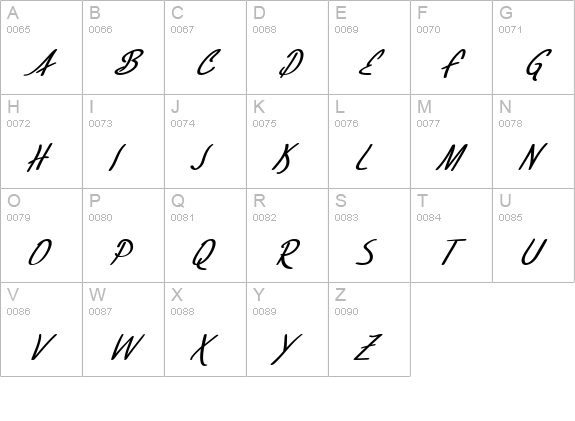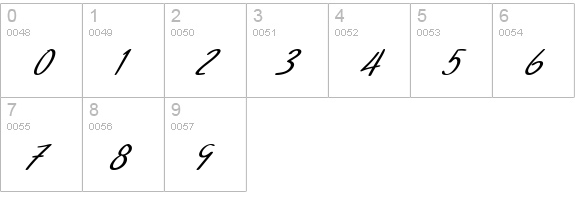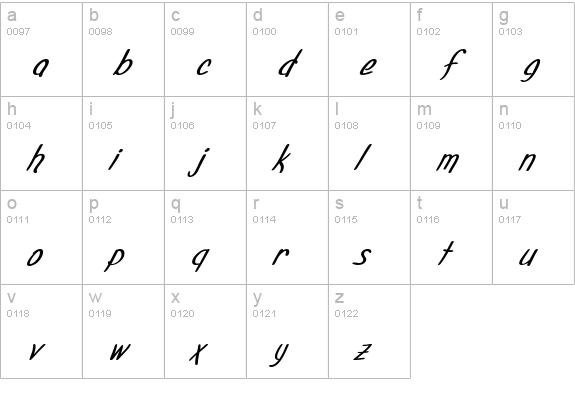
SF Foxboro Script Bold Italic Font Details
SF Foxboro Script Bold Italic is a strong, high-contrast, italic variant in the SF typeface family \xE2\x80\x94 well suited to headlines, attention-grabbing titles, and strong calls-to-action.
SF Foxboro Script Bold Italic is a stunning and elegant font that effortlessly combines boldness and style. This font is the perfect choice for those seeking a unique and captivating look for their designs. Its bold and italicized letterforms bring a sense of sophistication and flair to any project. With its graceful curves and intricate details, SF Foxboro Script Bold Italic is sure to make a lasting impression. Whether used for logos, headlines, or invitations, this font adds a touch of class and professionalism to any design. One of the best things about SF Foxboro Script Bold Italic is that it is available for free. Yes, that's right! You can freely download this font at FontsMarket.com. This means that you can enhance your creations without having to worry about any additional expenses. So why wait? Take advantage of the opportunity to elevate your designs with SF Foxboro Script Bold Italic. Download it for free today at FontsMarket.com and let your creativity soar. Whether you're a professional graphic designer or simply someone who loves to experiment with fonts, SF Foxboro Script Bold Italic is a must-have addition to your font library.